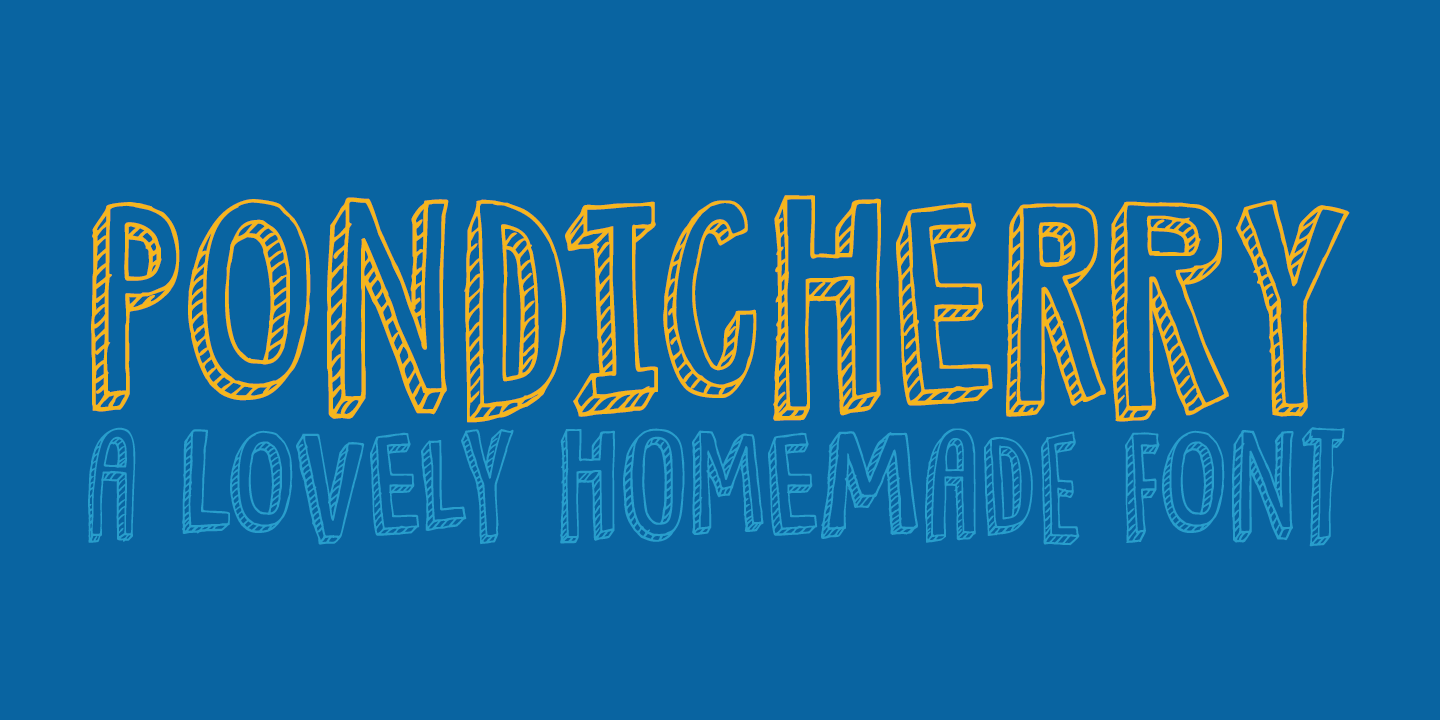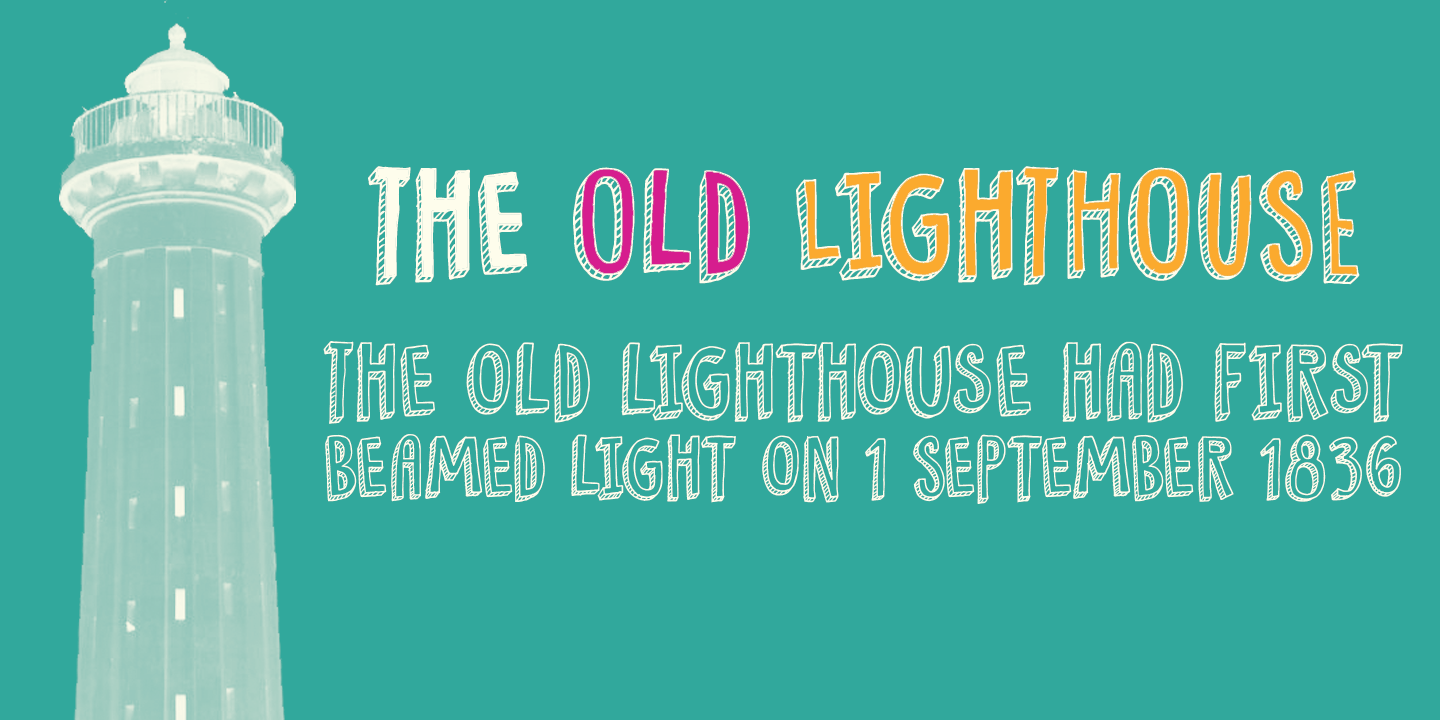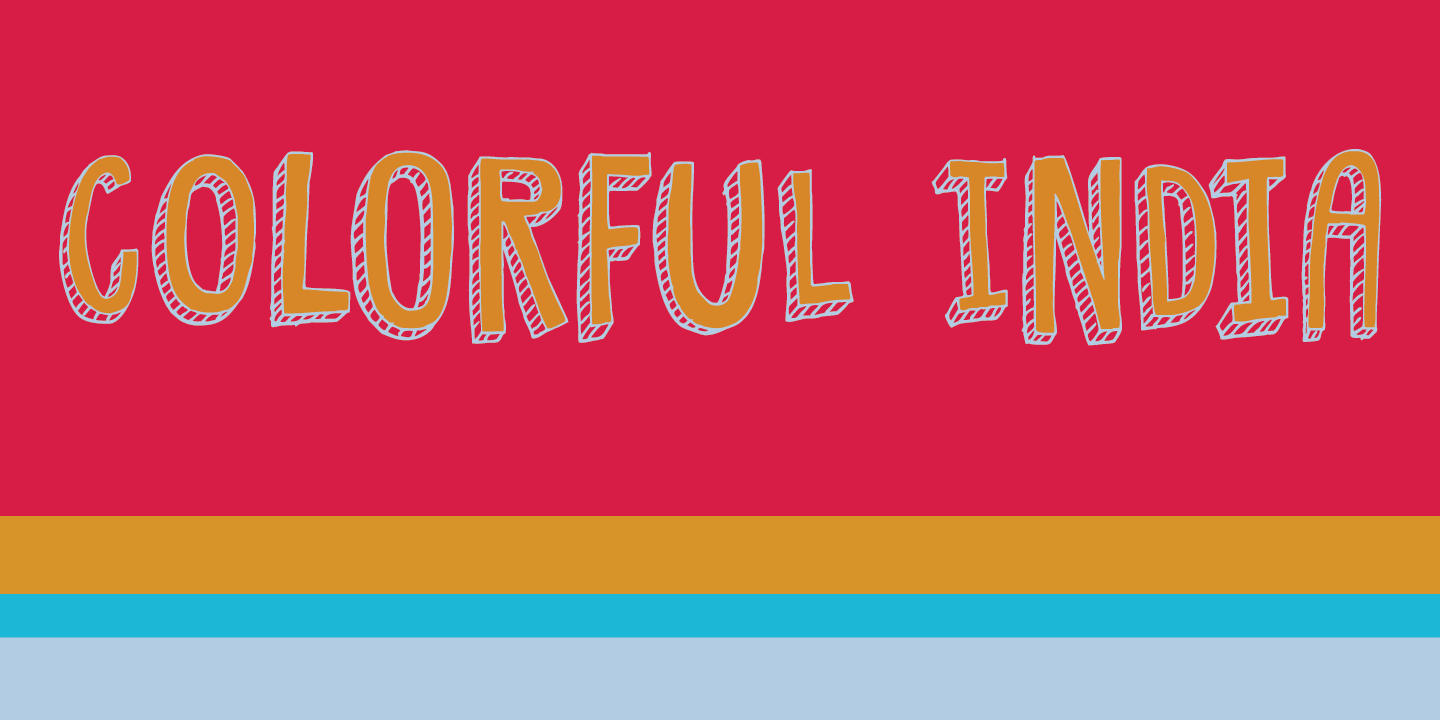
Pondicherry
Font Family by Hanoded
Buy NowPondicherry is a nice city in the South-East of India. It has changed colonial hands over time, but after the last colonial power (the French) left in 1954, it reunited with India. I have always liked the name Pondicherry. It evokes something happy and exotic and I guess I had the same feeling when I developed this font. Pondicherry font is an outlined affair with an uneven baseline and an overall ?happy? feel. It is an all caps font, but upper and lower case differ and you can use them together. Pondicherry comes with a treasure chest full of diacritics.